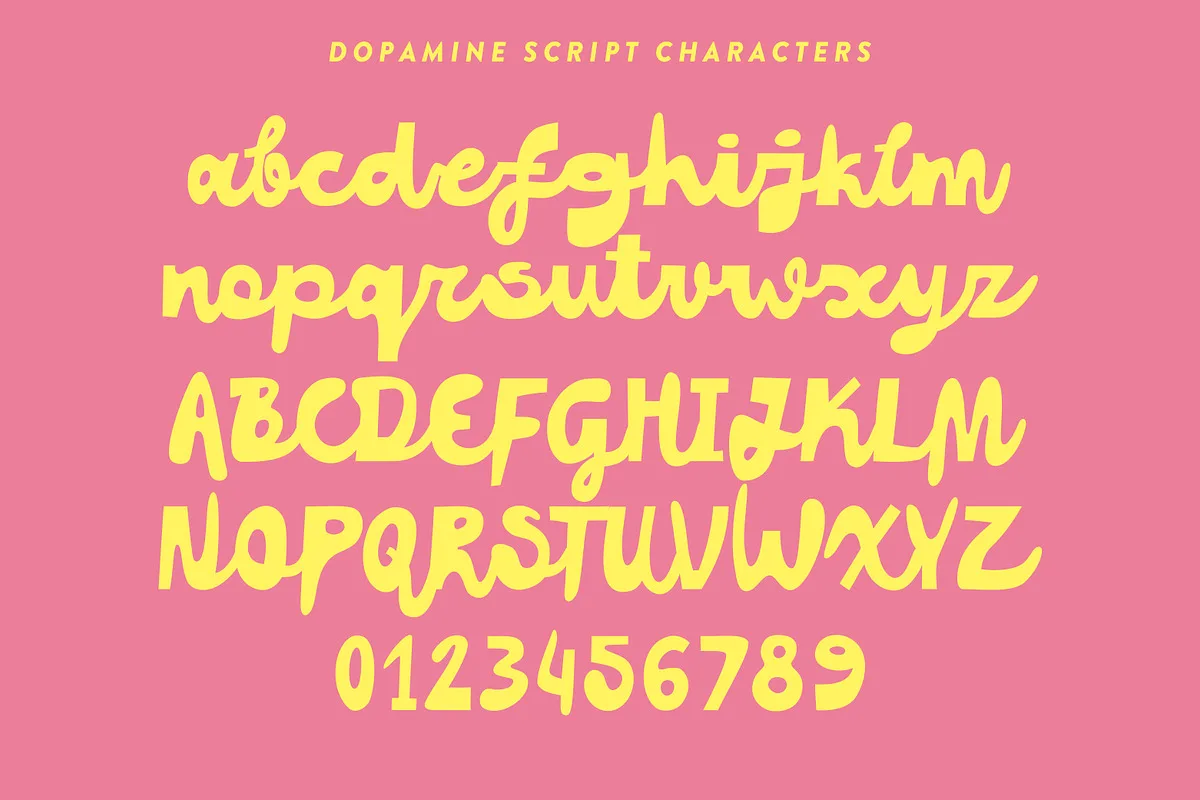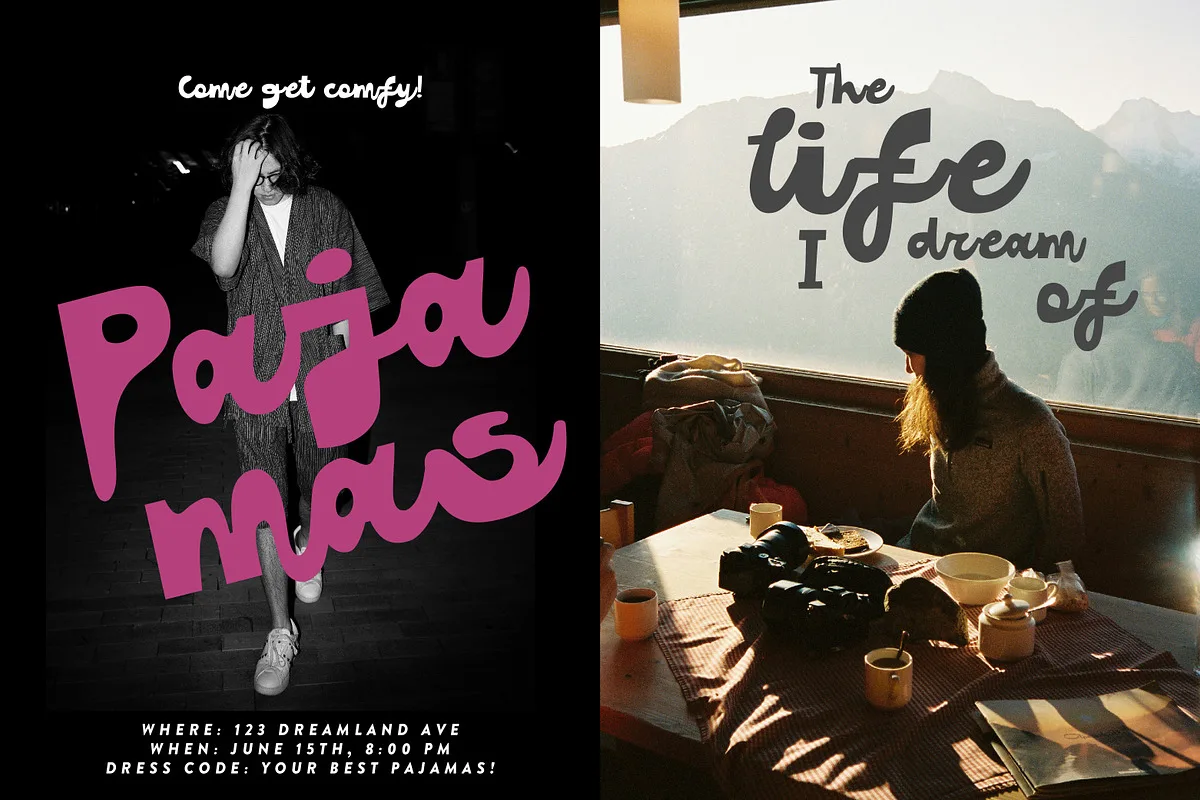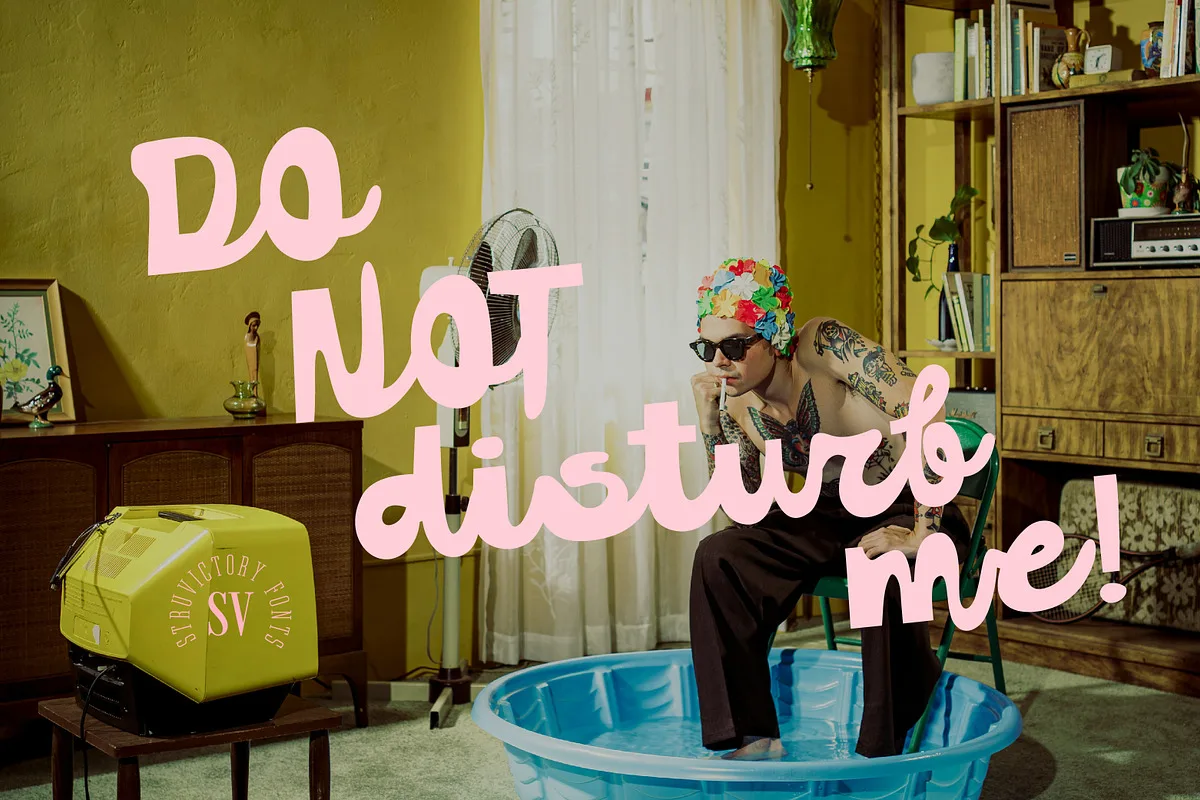
Dopamine Script is a relaxed yet confident hand-drawn typeface, crafted to bring natural rhythm and character to design projects. With loose strokes, organic imperfections, and a casual structure, it fits perfectly into branding, apparel, packaging, and editorial design. Balanced between spontaneity and clarity, Dopamine Script helps your work feel personal, distinctive, and effortlessly stylish.